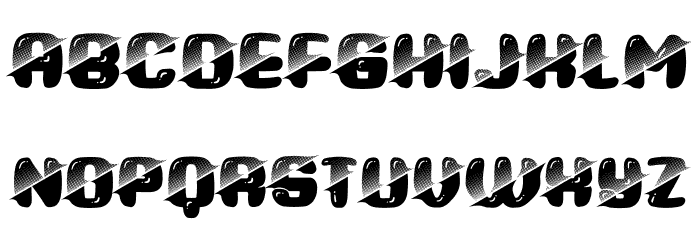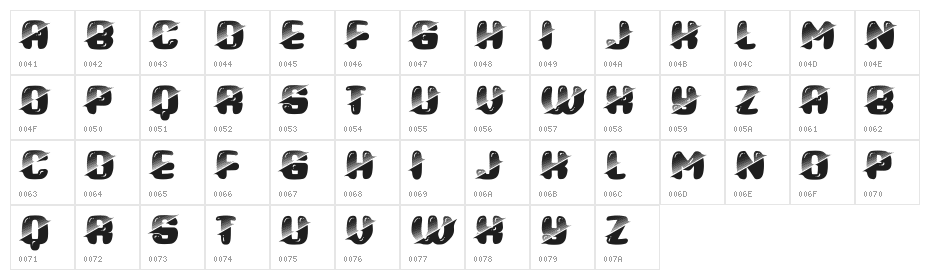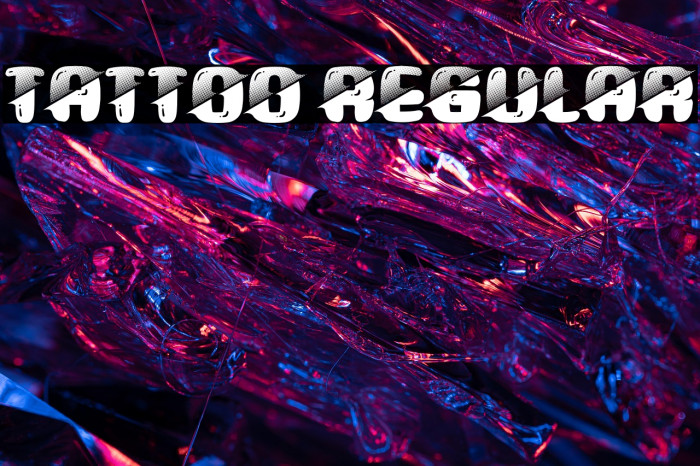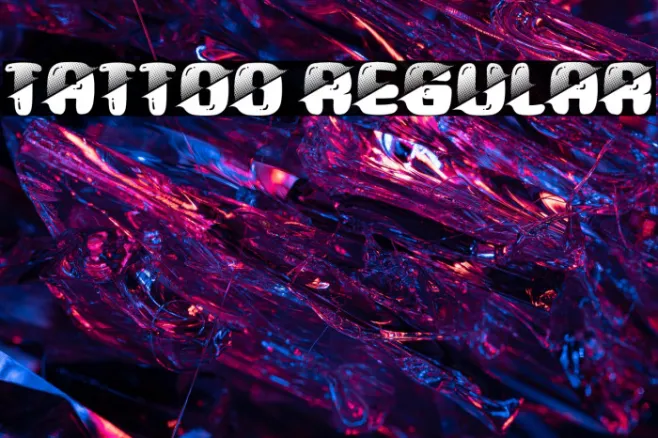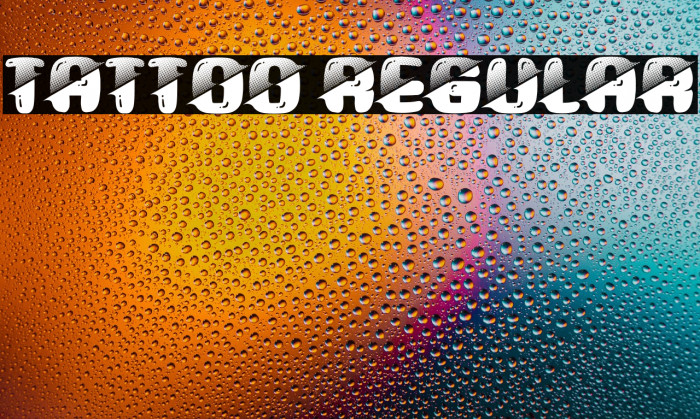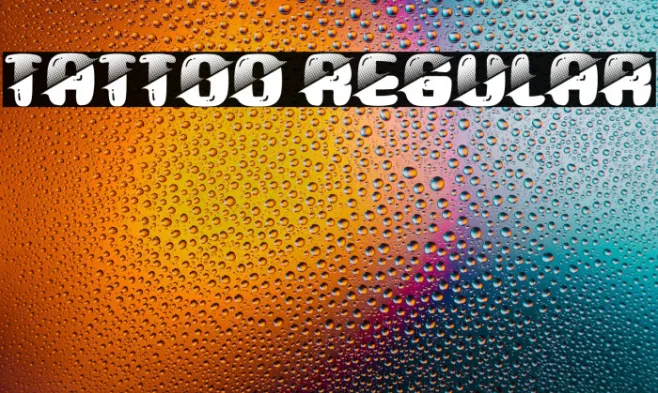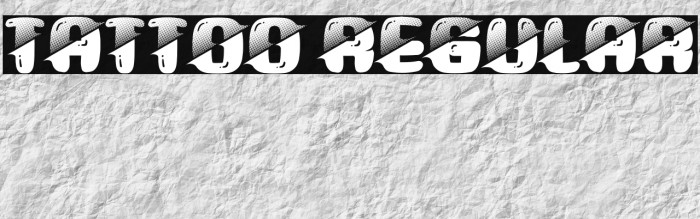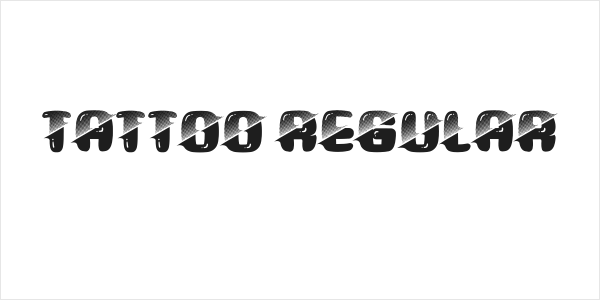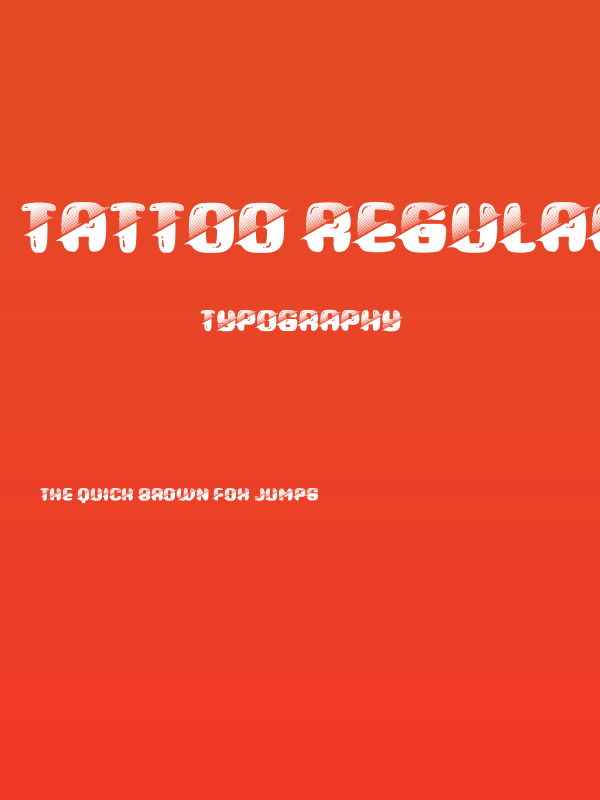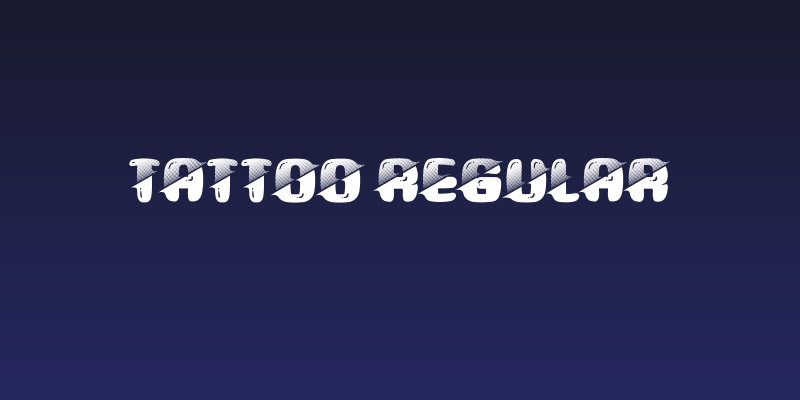
Tattoo Regular Font
This font features a bold, decorative style with a unique gradient effect that gives it a dynamic and eye-catching appearance. The characters are thick and robust, with a distinct shadowing that adds depth and dimension. The design incorporates a modern twist on traditional tattoo aesthetics, making it stand out with its artistic flair. The uppercase letters are particularly striking, with a consistent flow and balance that enhances readability despite the intricate design. The font's boldness and decorative elements make it ideal for projects that require a strong visual impact.
A bold, decorative font with a gradient effect and tattoo-inspired design.
- Font: Tattoo Regular
- Proposed Projects: Ideal for tattoo designs, posters, album covers, and branding that requires a bold statement.
- Overall Style: Modern, Decorative